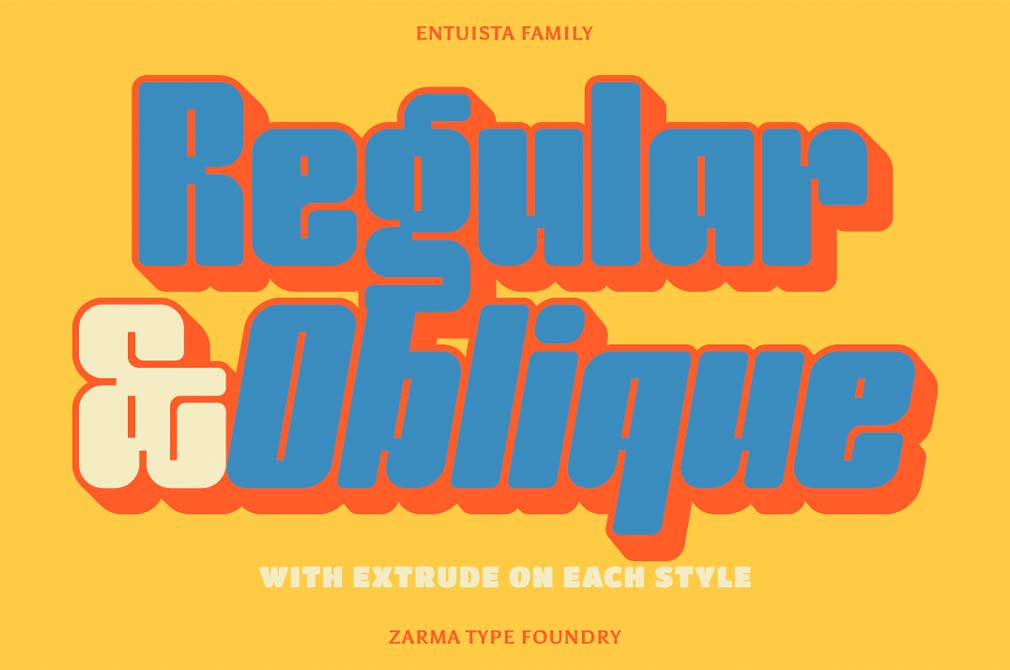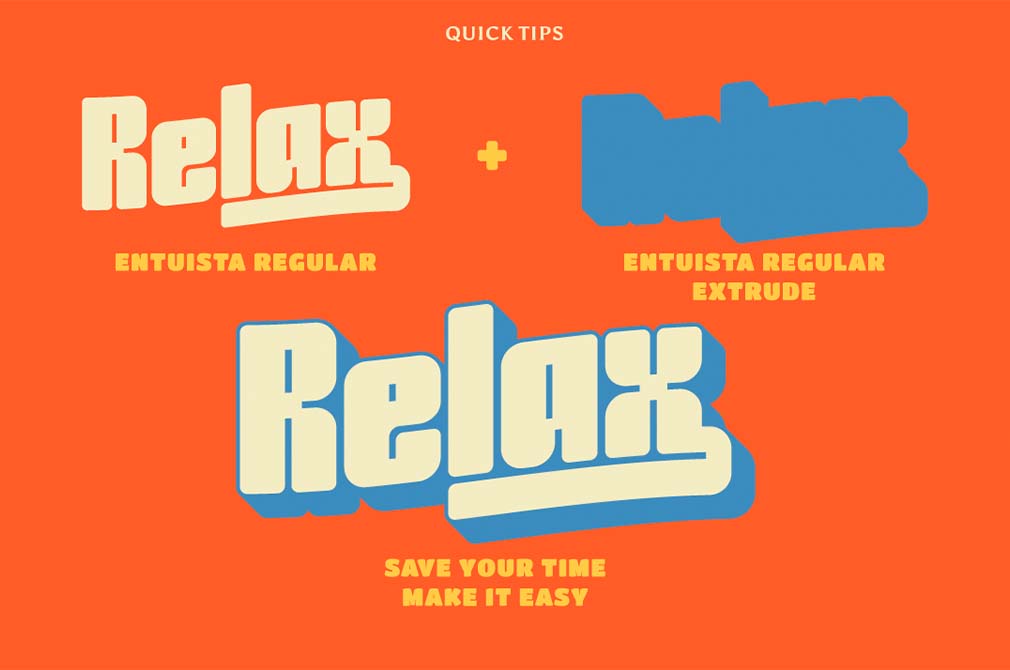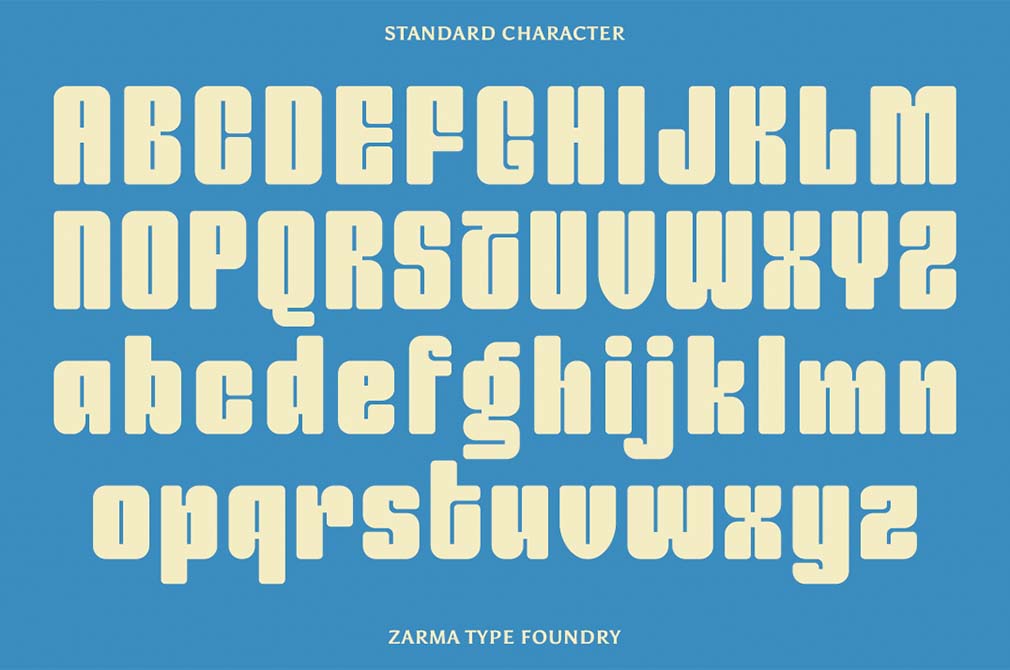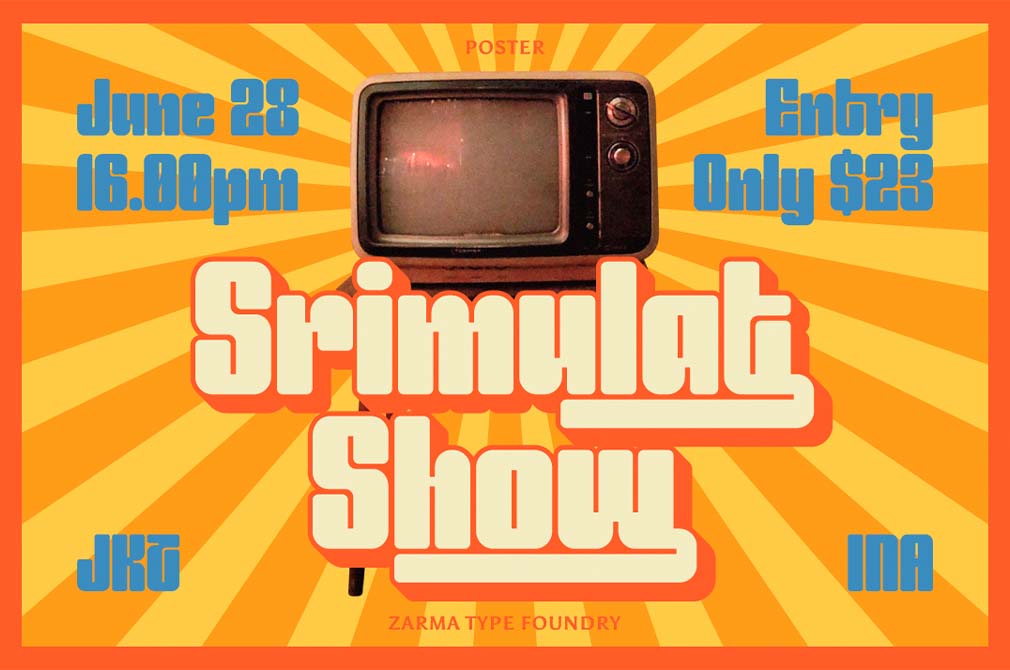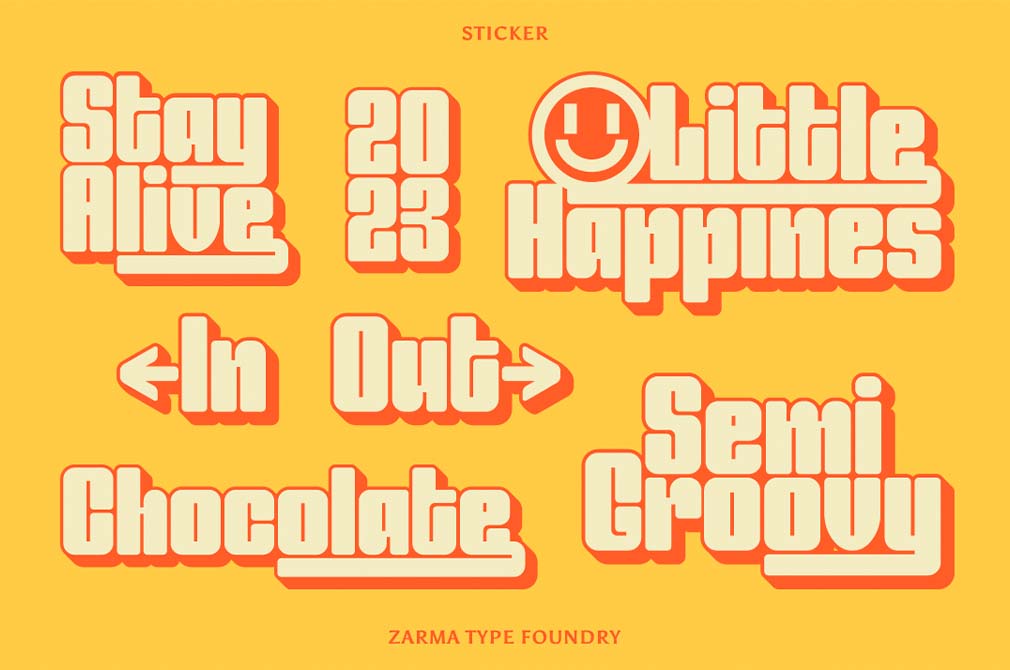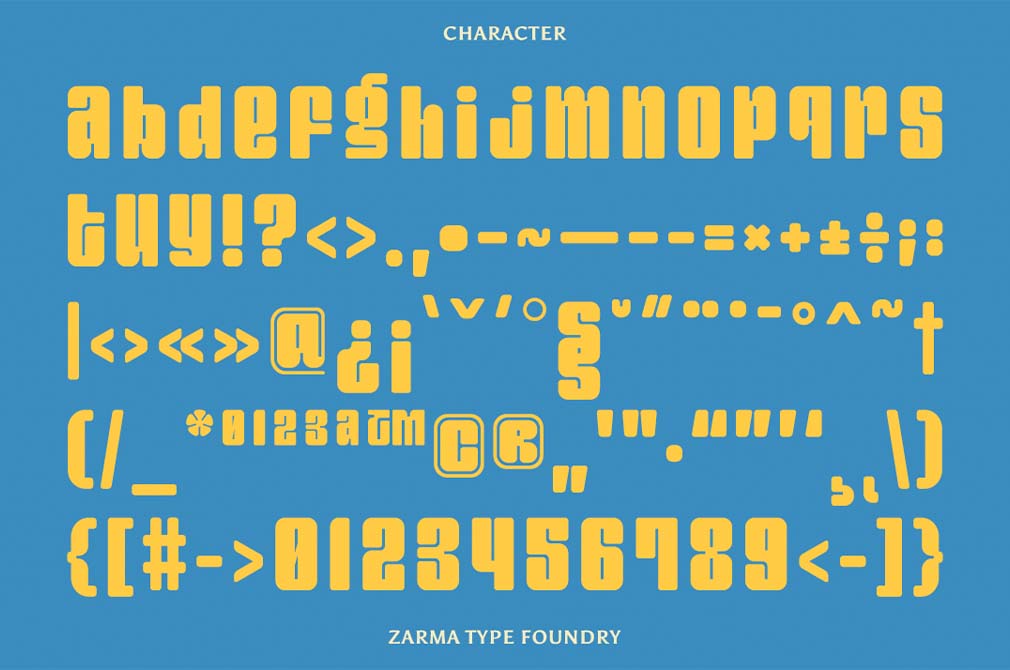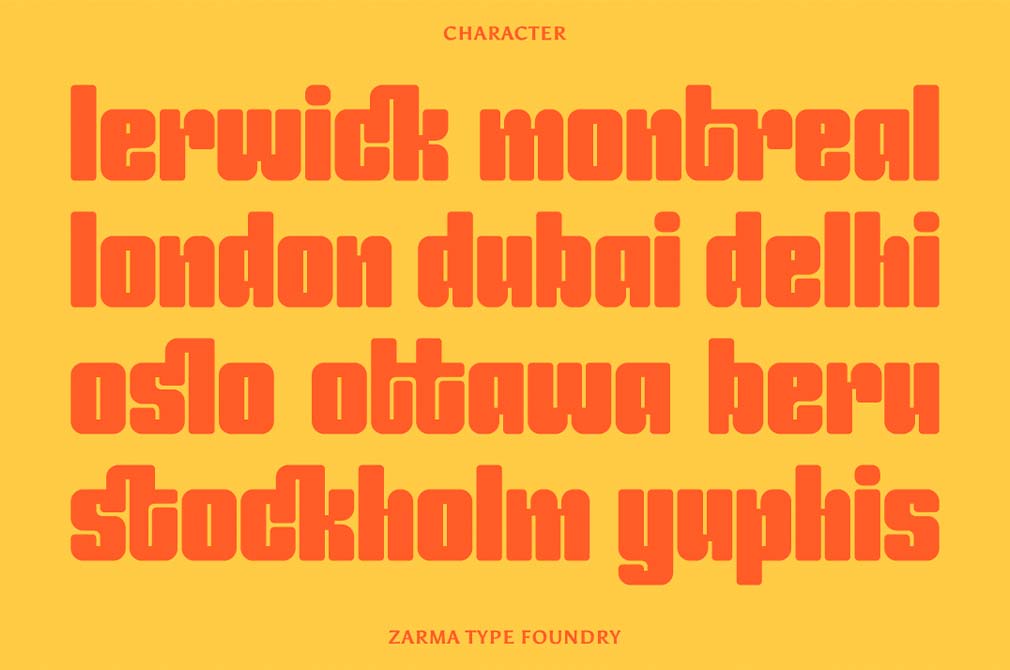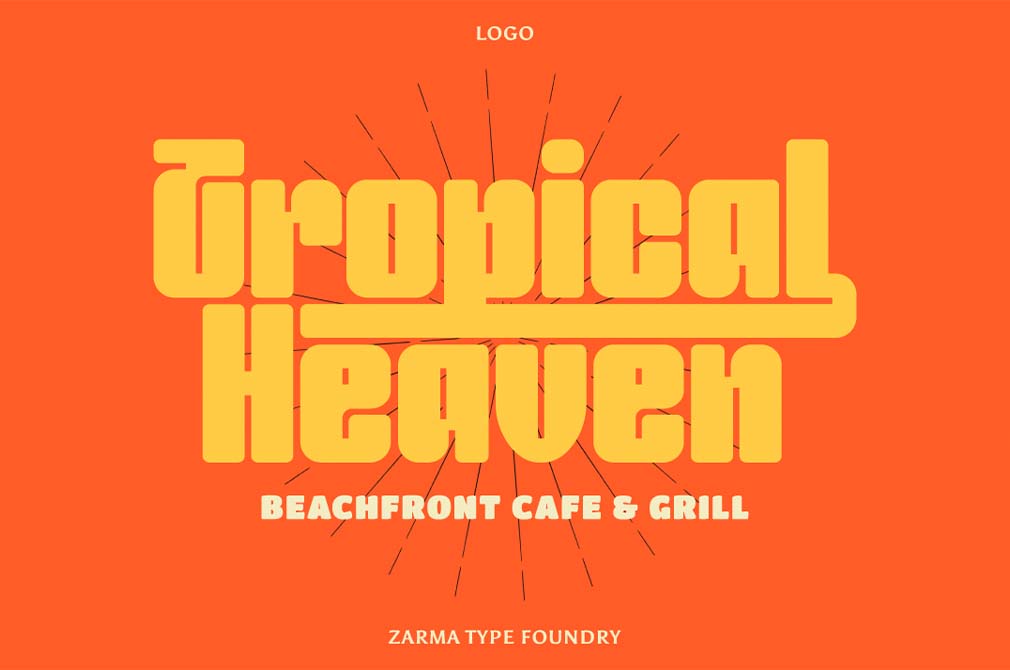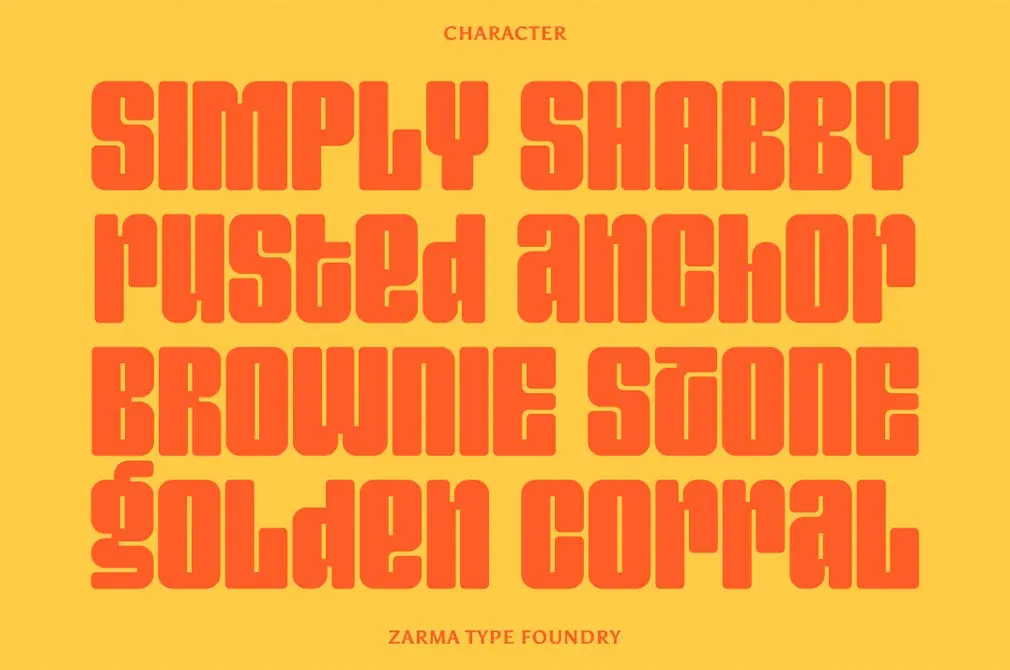
Entuista — Chunky Display Font
Regular Extrude
Oblique
Oblique Extrude
What's gonna happen if we take all the retro road movies and squeeze them into a single font? Not a Big Bang yet, but something as legendary as Buicks traveling across the US.
Entusta is a type with a fun old-school vibe in every character — and every character's shadow, believe that or not. It has 2 styles, regular and oblique, with an extra extruded version for each style. You'll find a complete character set featuring multilingual support, ligatures, stylistic alternates, and swashes. With such a bunch of tools, not just a spontaneous journey is within your grasp, but all kinds of stickers, tee designs, social media elements, stationery, and more.